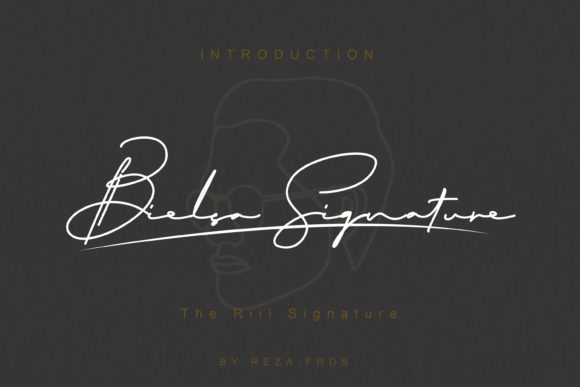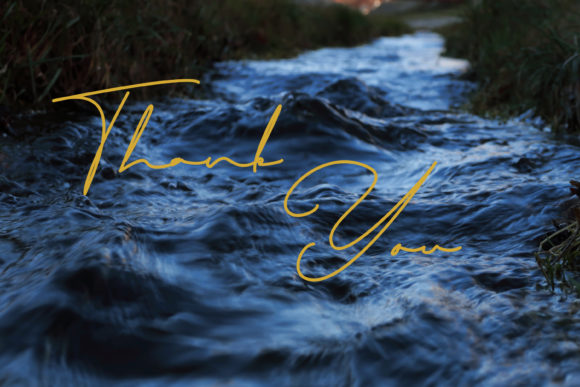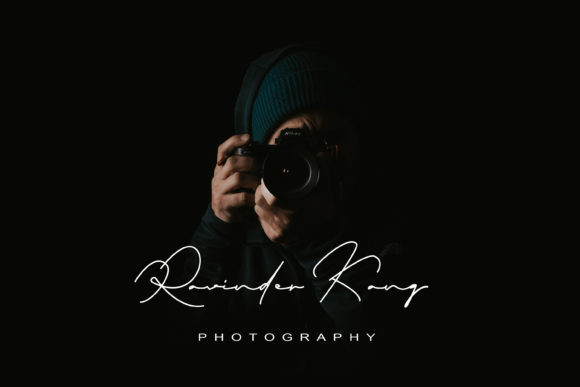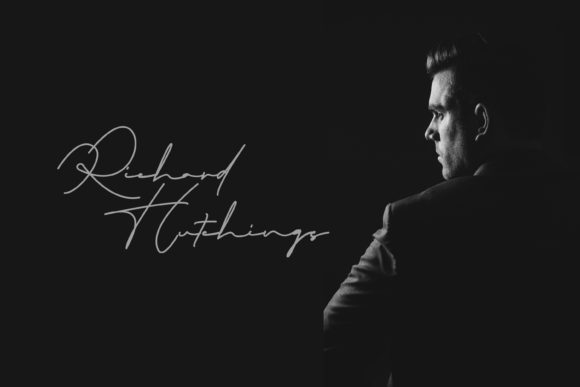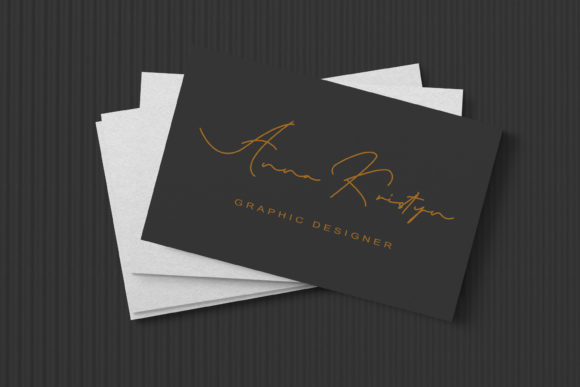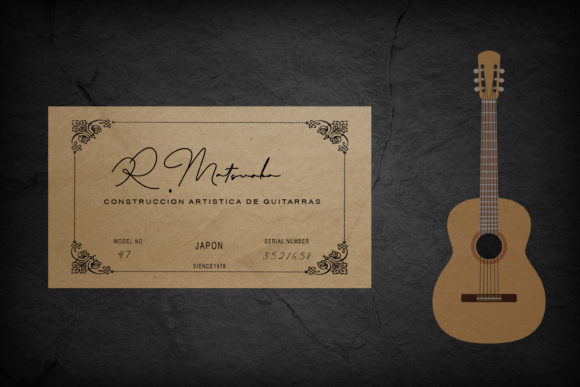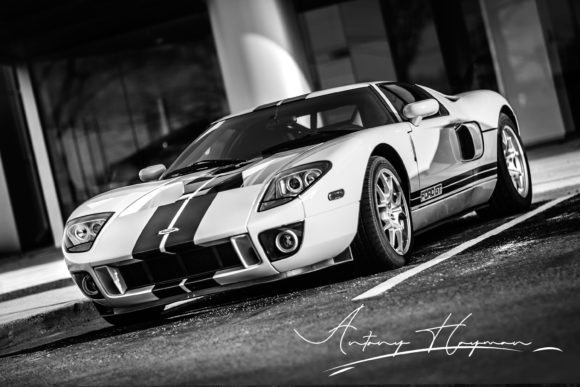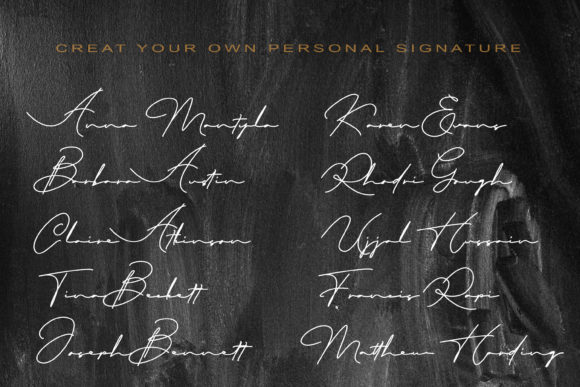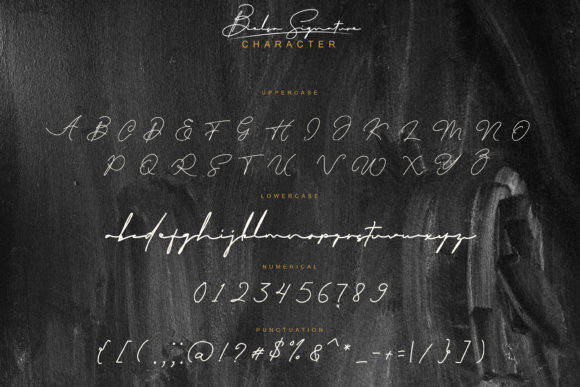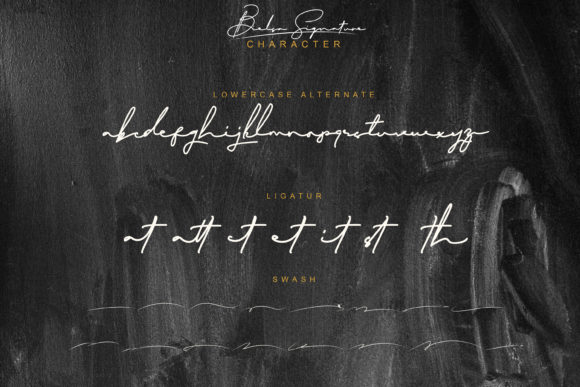
Bielsa Signature Font
About Bielsa Signature Font
“Bielsa Signature” is a script font with a free-flowing and natural feel. It has been designed to cater to a range of applications, including packaging products, invitation cards, flyers, mockups, event posters, and any project that calls for a high-quality and visually appealing touch. This font boasts a balanced and beautiful character that seamlessly integrates into a diverse range of design aesthetics.
The font’s allure lies in its ability to convey a sense of free-spirited elegance. Its flowing script style adds a touch of authenticity and creativity to the projects it’s applied to, enhancing their visual impact.
“Bielsa Signature” is particularly well-suited for various contexts, from formal invitations to dynamic event posters. Its versatile design ensures that it blends well with a wide design pool, making it adaptable for different creative needs.
In essence, “Bielsa Signature” is a font that offers both beauty and balance. Its free-flowing script and high-quality vibes make it an excellent choice for designers and creators aiming to bring a touch of sophistication to their projects while maintaining a sense of creativity and authenticity.